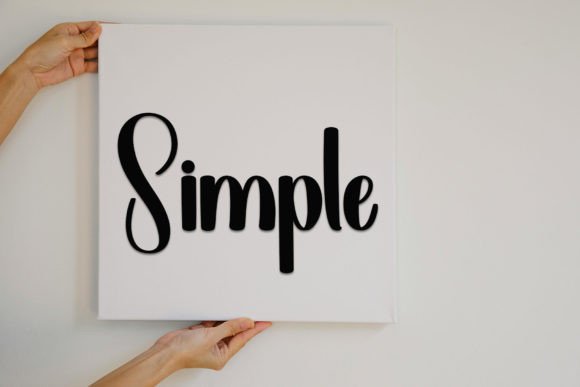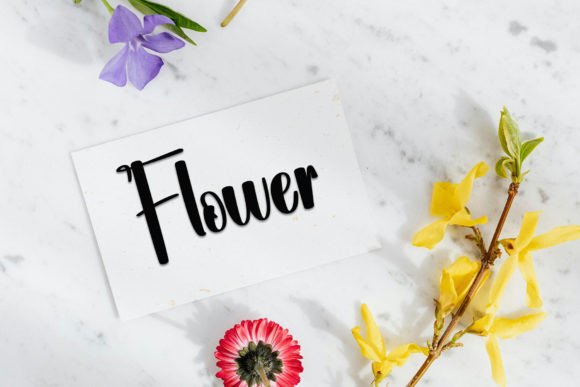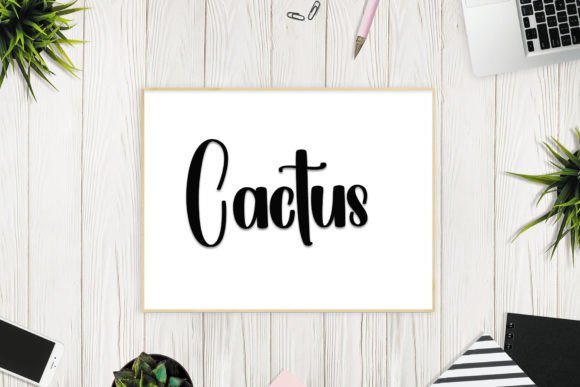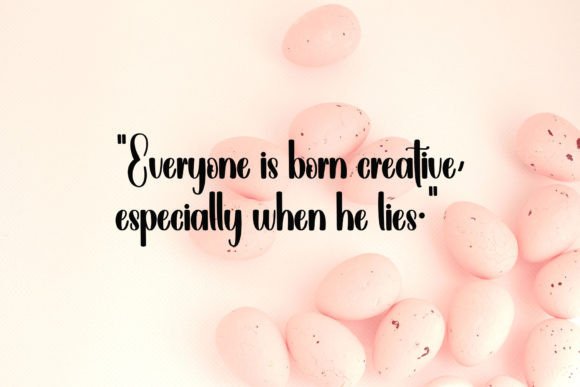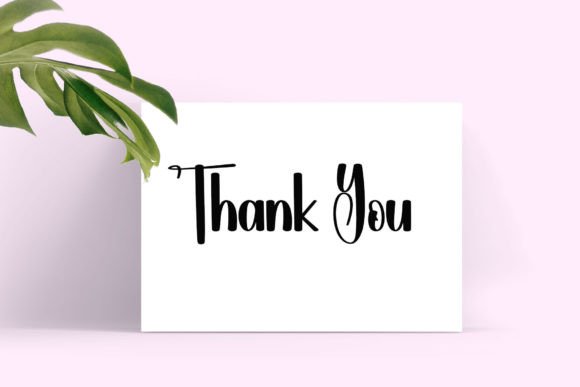
Discover the Beauty of Botanical Font
As a designer, there’s nothing quite like the thrill of finding that perfect font to elevate your project. It’s the moment when the words on the page start to feel like a work of art. You know the one I’m talking about – that instant when everything comes together and you can’t wait to share your creation with the world. For me, that moment often starts with the Botanical Font, a beautiful handwritten font that adds an elegant touch to any design.
Whether you’re working on a wedding invitation, a blog post, or a social media campaign, the Botanical Font is the perfect choice. Its timeless style and distinct character make it a valuable addition to any designer’s toolkit. With its versatility and charm, this font is sure to fall in love with your favorite projects and leave a lasting impression on your audience.
Botanical Font Key Features
- Unique Characteristics: The Botanical Font features a unique blend of modern and traditional elements, with intricate details and subtle flourishes that evoke the beauty of nature.
- Kerning and Ligatures: The font includes advanced kerning and ligature pairs, ensuring smooth text flow and professional-looking typography.
Designer Review: Botanical Font
When I first saw the Botanical Font, I was immediately drawn in by its whimsical and elegant aesthetic ✨. The intricate details and organic shapes evoke a sense of nature and wonder, making it perfect for projects that need a touch of sophistication and beauty.
- The font’s unique blend of modern and vintage elements makes it highly versatile ✨. It works well for logos, branding, and even large-scale typography.
- The Botanical Font has excellent legibility, even at smaller font sizes ✨. This makes it suitable for a wide range of applications, from business cards to websites.
- The font comes in a variety of weights and styles, offering endless possibilities for creative expression ✨.
However, I do have a few concerns ⚠️. The font’s complexity can make it difficult to read at very small sizes, and the weight of some styles may not be ideal for certain projects.
Overall, I think the Botanical Font is a stunning addition to any designer’s toolkit. While it may have some limitations, its unique charm and versatility make it a great choice for projects that require a touch of elegance and sophistication.
Botanical Font is ideal for:
- Creating botanical illustrations and diagrams.
- Designing garden and landscape designs.
- Labeling plant species and varieties.
- Creating educational materials and presentations about botany.